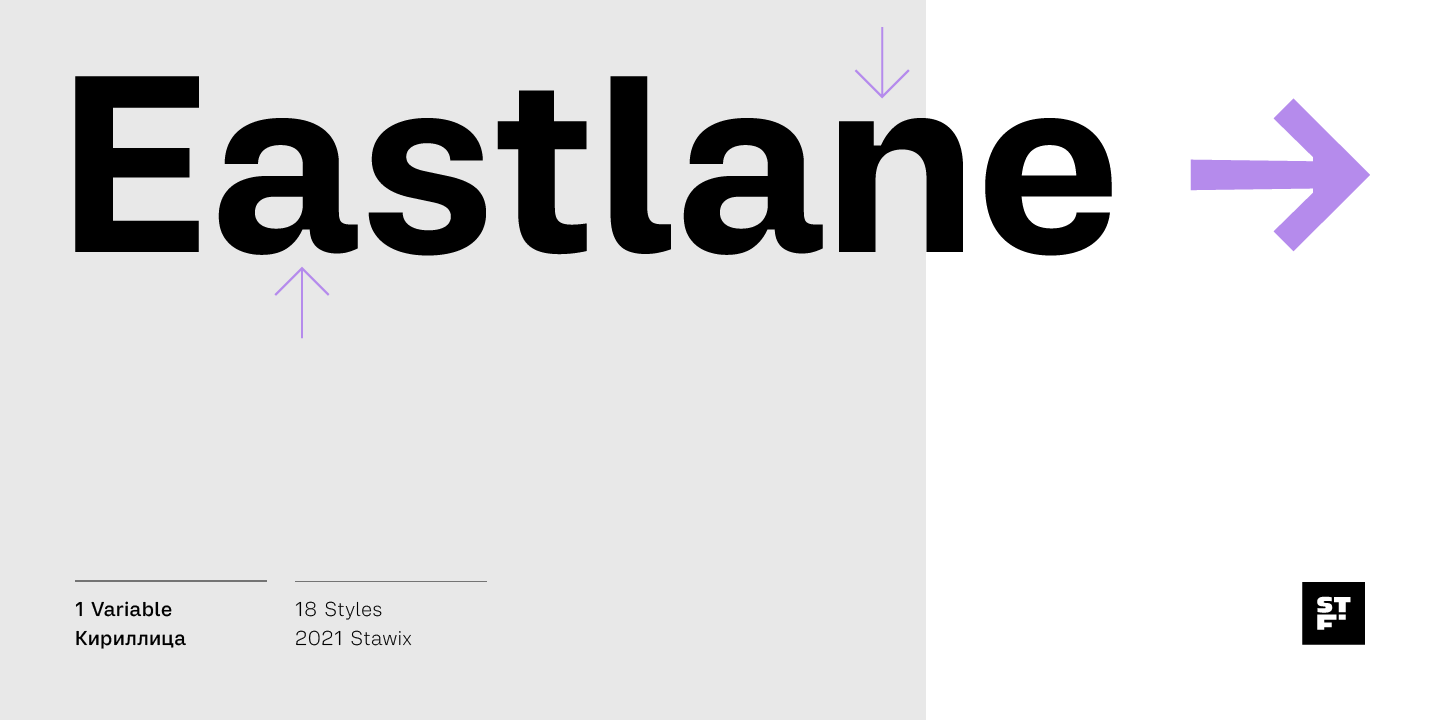
Eastlane Font is perfect for urban fashion brands, streetwear clothing labels, contemporary art galleries, modern music album covers, trendy coffee shop signage, lifestyle blog headers, social media marketing campaigns, youth-oriented advertising, creative agency branding, and metropolitan lifestyle magazines. This dynamic typeface captures the energy and sophistication of modern city living with contemporary urban appeal.
What makes Eastlane Font exciting is its perfect fusion of metropolitan sophistication and street-smart authenticity that resonates with urban culture. The font features sleek letterforms with contemporary edge and distinctive character personality that reflects the dynamic rhythm of city life. Its modern design language communicates innovation, confidence, and urban sophistication, making it ideal for brands targeting young professionals and culturally-aware audiences who appreciate cutting-edge design and authentic urban expression in their lifestyle choices.
Eastlane Font comes in versatile font families including Regular, Bold, Light, Medium, Condensed, and Extended variations. Each family member maintains the signature urban appeal while offering different weights and widths to accommodate various metropolitan design needs, from subtle branding elements to bold street-style statements that command attention in busy urban environments.
Whether you're designing for urban markets or creating contemporary lifestyle projects, Eastlane Font Free Download delivers the typographic edge needed to connect with modern audiences. The font's metropolitan character and contemporary appeal make it an excellent choice for designers working on projects that need to communicate urban sophistication, cultural awareness, and modern lifestyle values through typography that speaks the language of today's dynamic city culture.